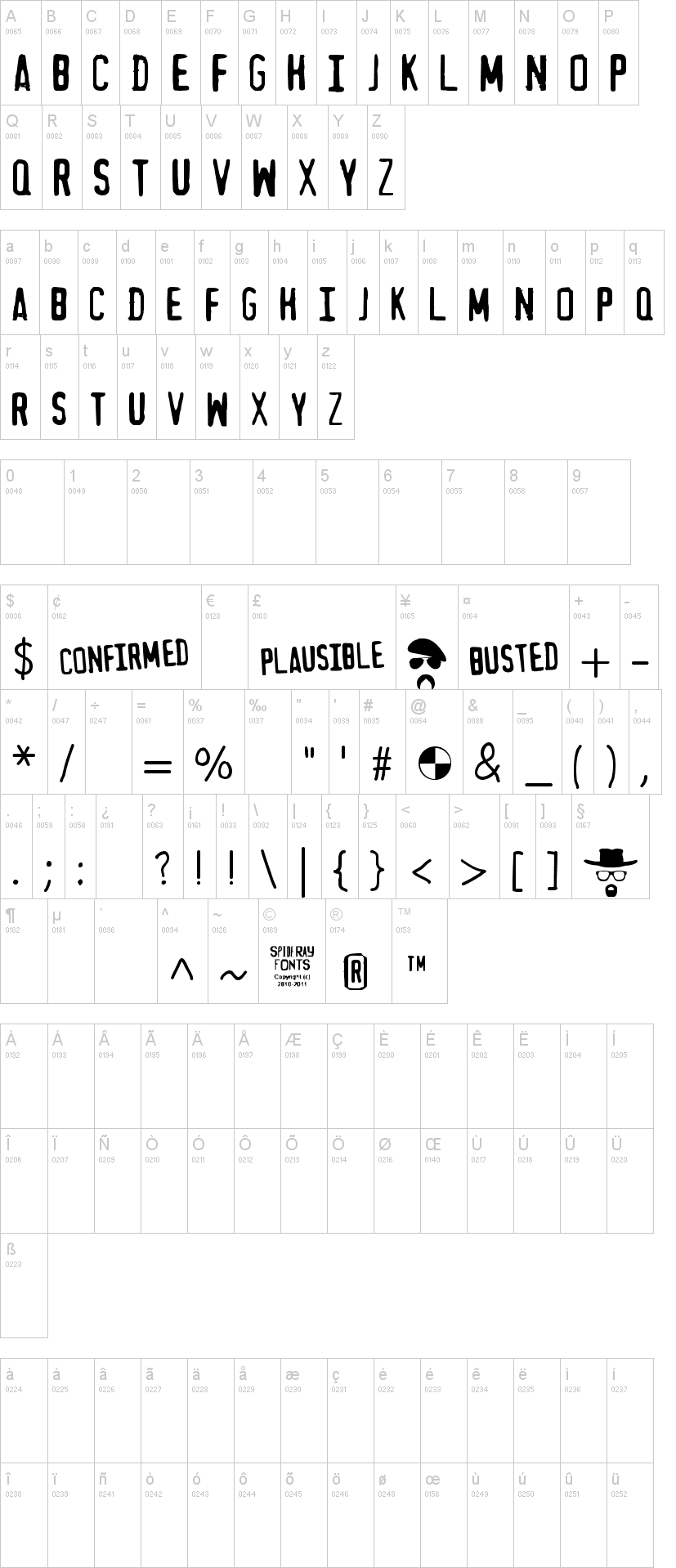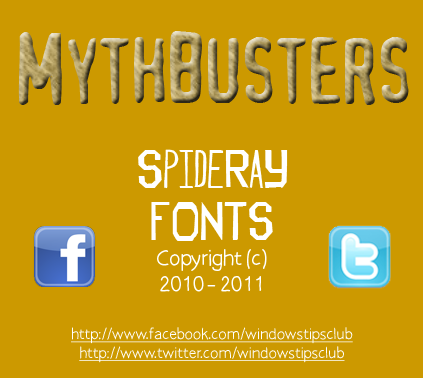
Шрифт MythBusters
Fan-font based on the TV show of the same name, this TV show has got to be in the top 5 of all TV shows ever made ,this is my attempt to help spread the word to all those uninitiated still living amongst us.